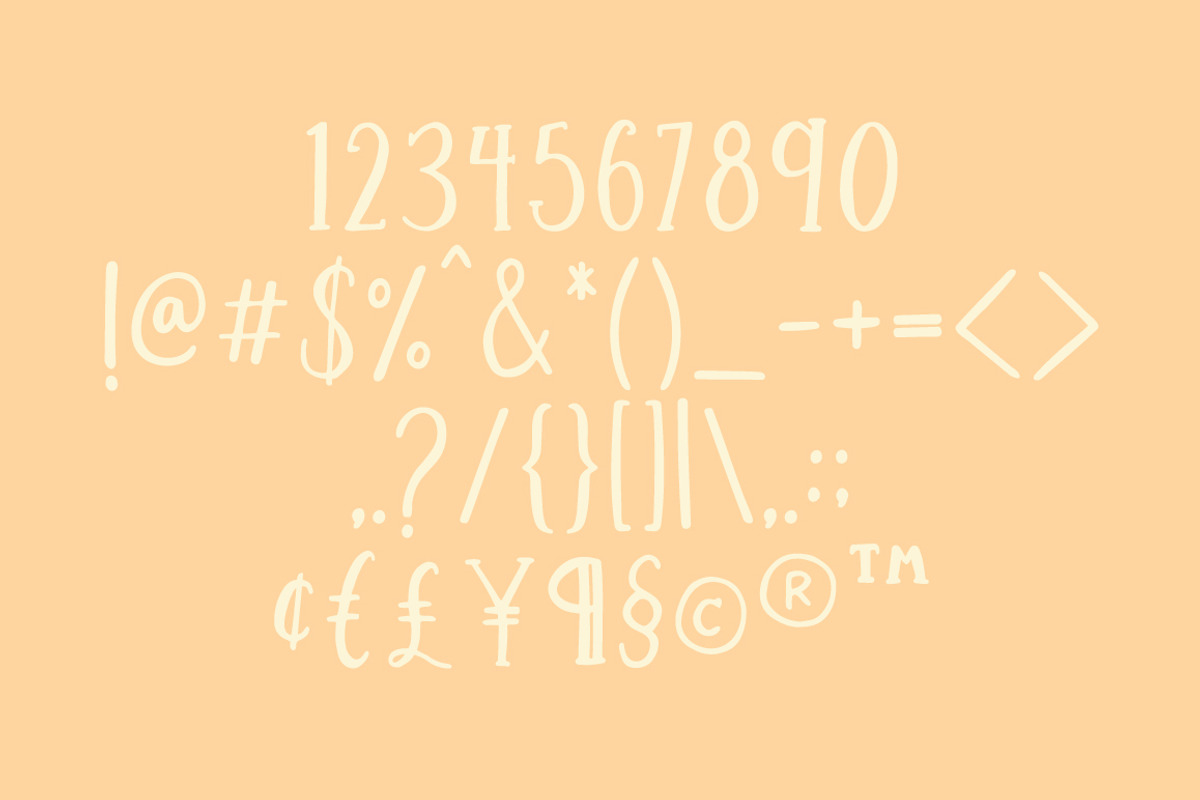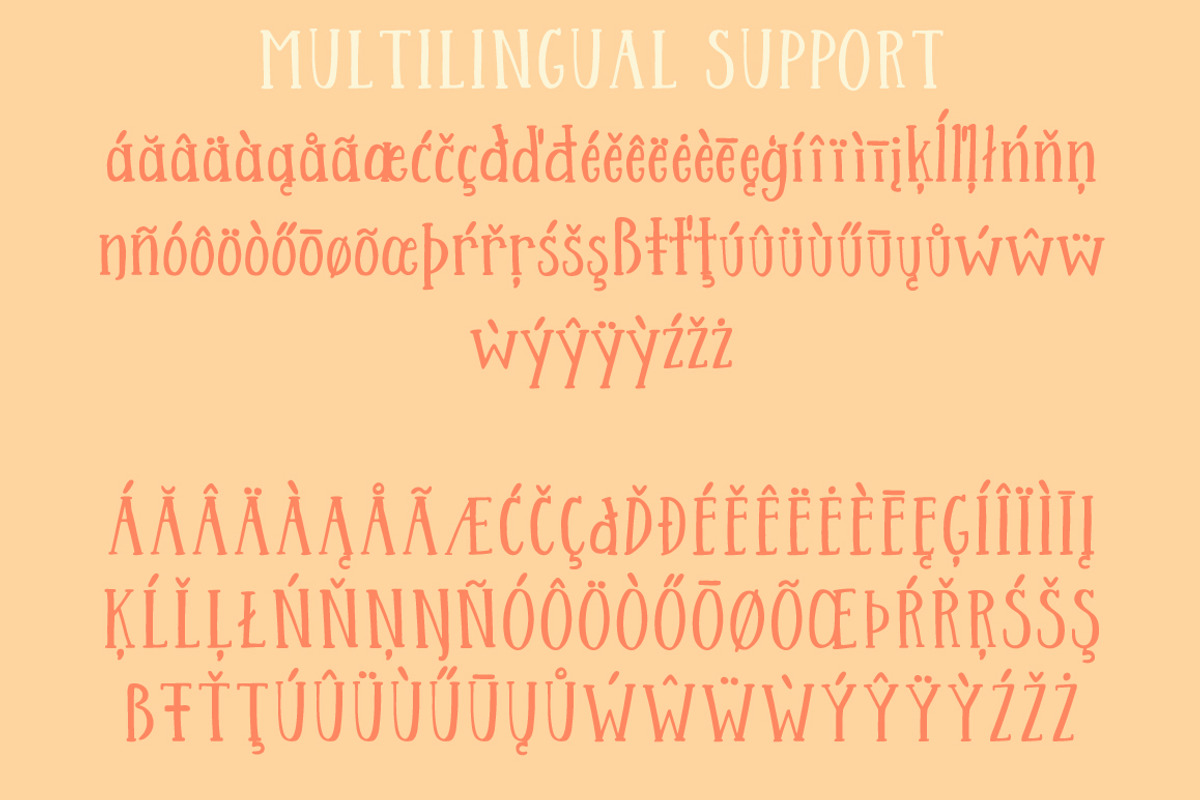
Streusel Kuchen Handwritten Serif
Streusel Kuchen is a relaxed handwritten serif font.
It is unique but classic, quirky but readable, and perfect for all types of projects including packaging, posters, books, and more!
Streusel Kuchen has a complete character set with uppercase, lowercase, punctuation, numerals, and Western and Central European glyph support.